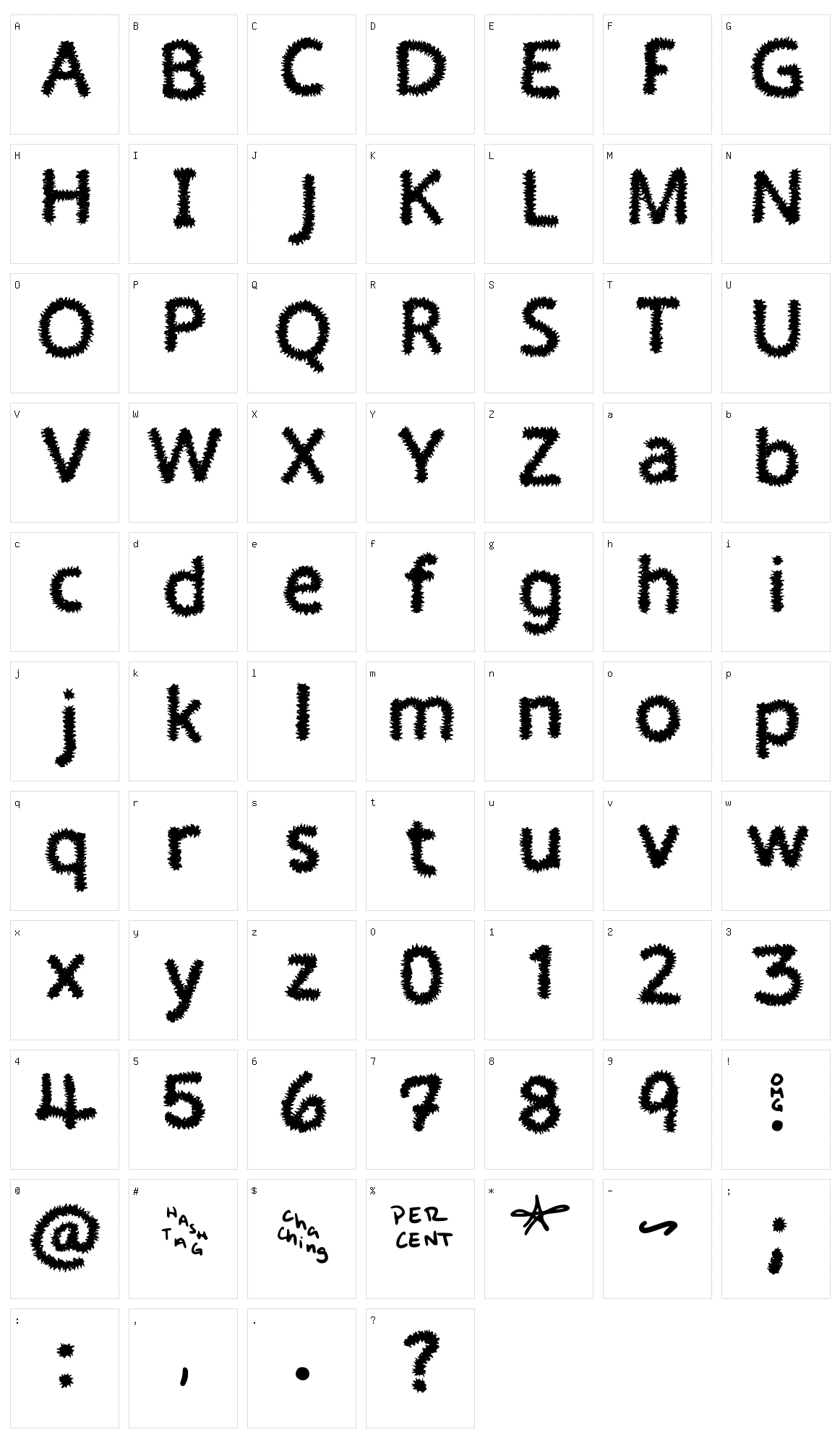
The free font Fuzzy wuzzy was a font is carefully designed by oX Nytemare Xo, showcasing a thoughtful balance of creativity and usability and falls under the Trash font style. When you download the ZIP file, it contains only 90.35 KB of font files, making it lightweight and quick to download. Please review the license details below to understand permitted usage and distribution rights. If license information is not available, we recommend using this font for personal projects only or contacting the author directly for commercial usage permissions.